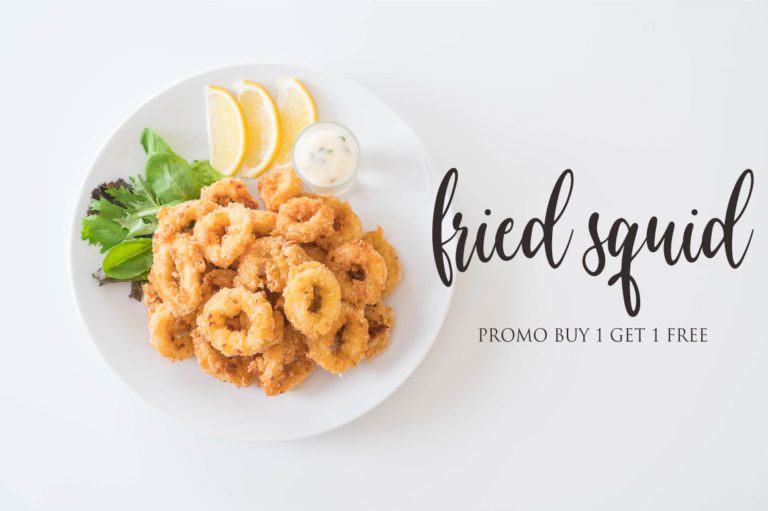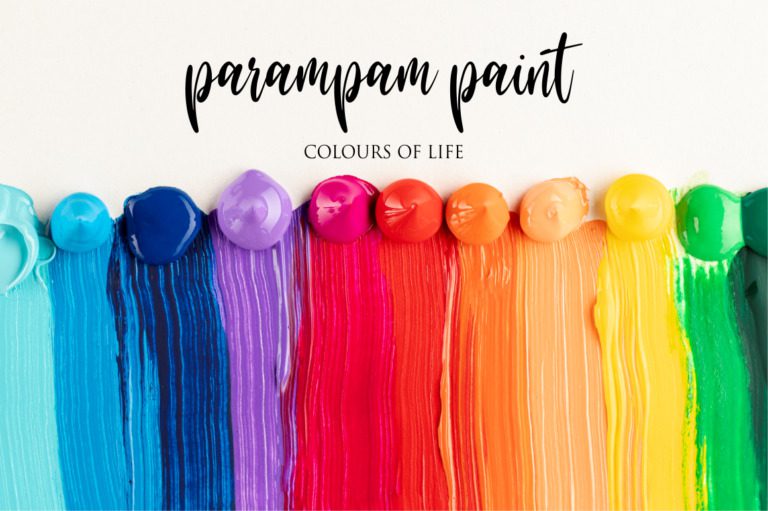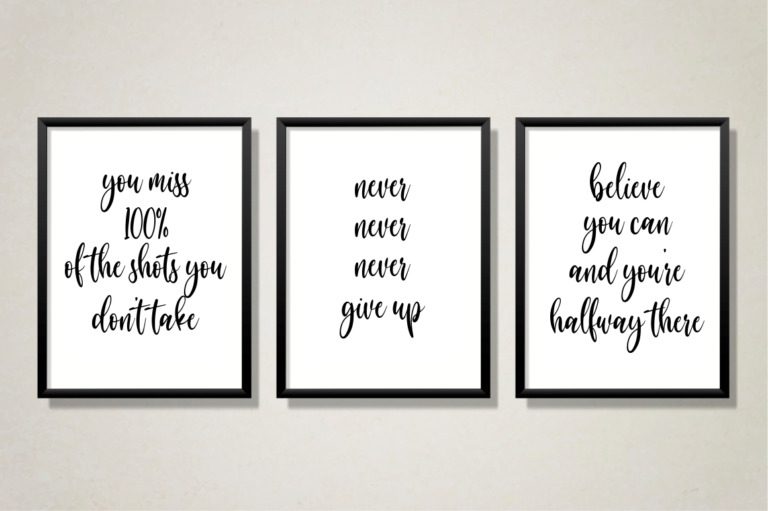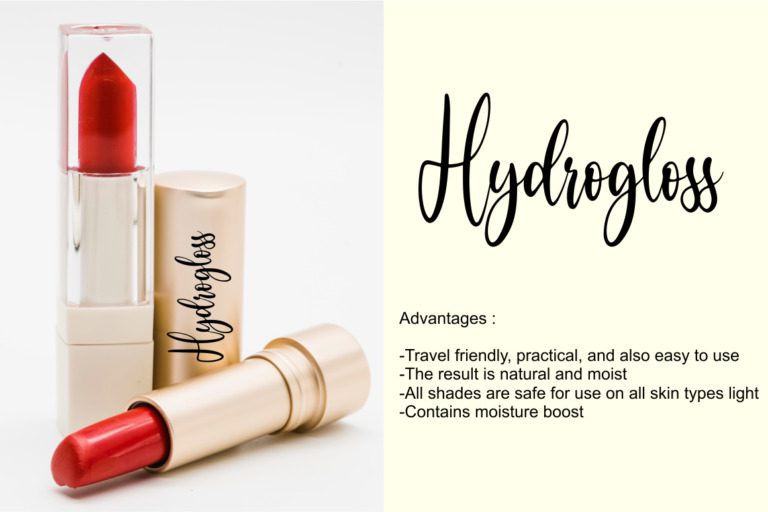
Sweet Song Font
Sweet Song is a charming handwritten script font with a modern, playful look. Its graceful and extremely neat characters, along with its beginning and ending swashes, add a touch of elegance and sophistication to any design. Perfect for invitations, greeting cards, and other creative projects, Sweet Song is sure to capture hearts with its sweet and romantic style.